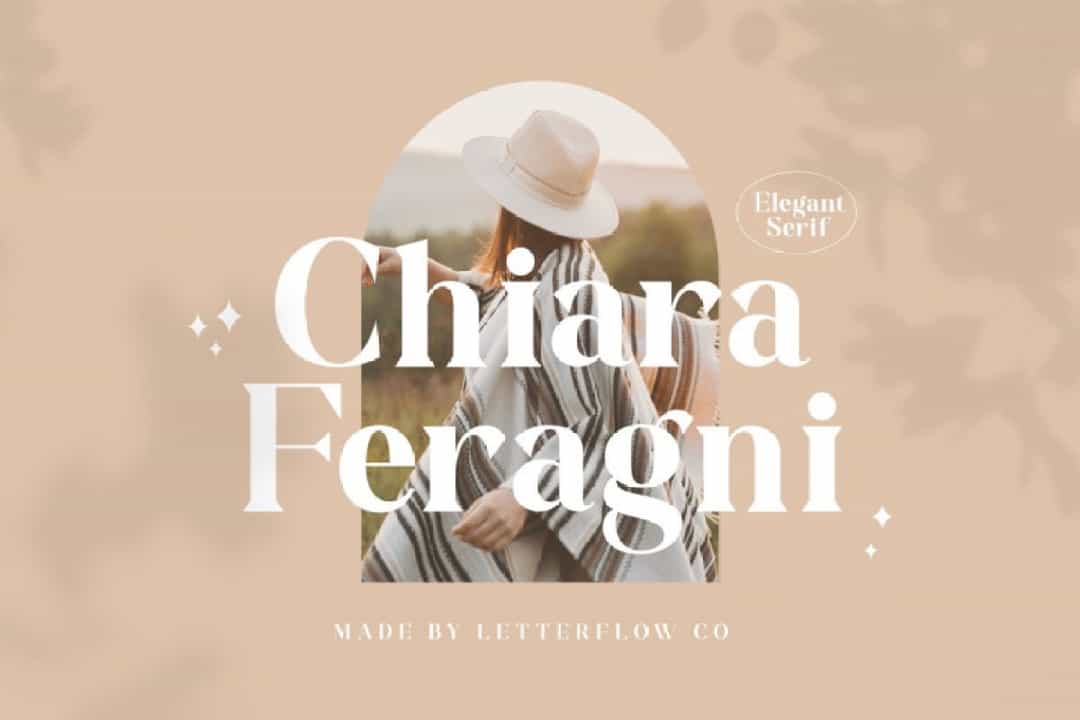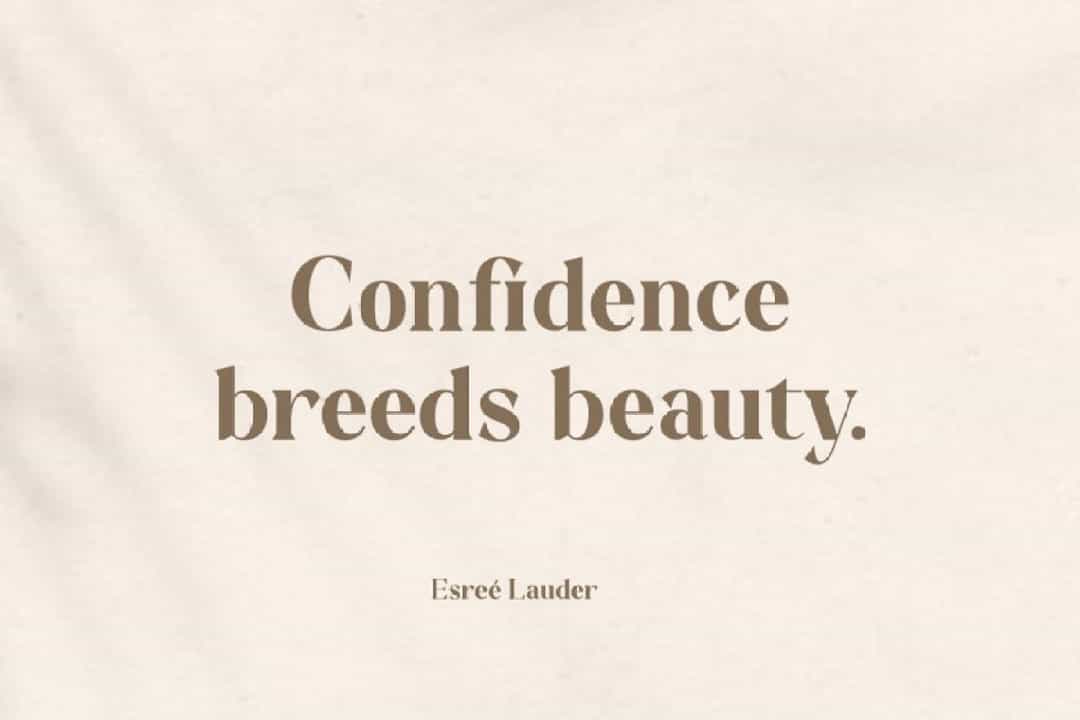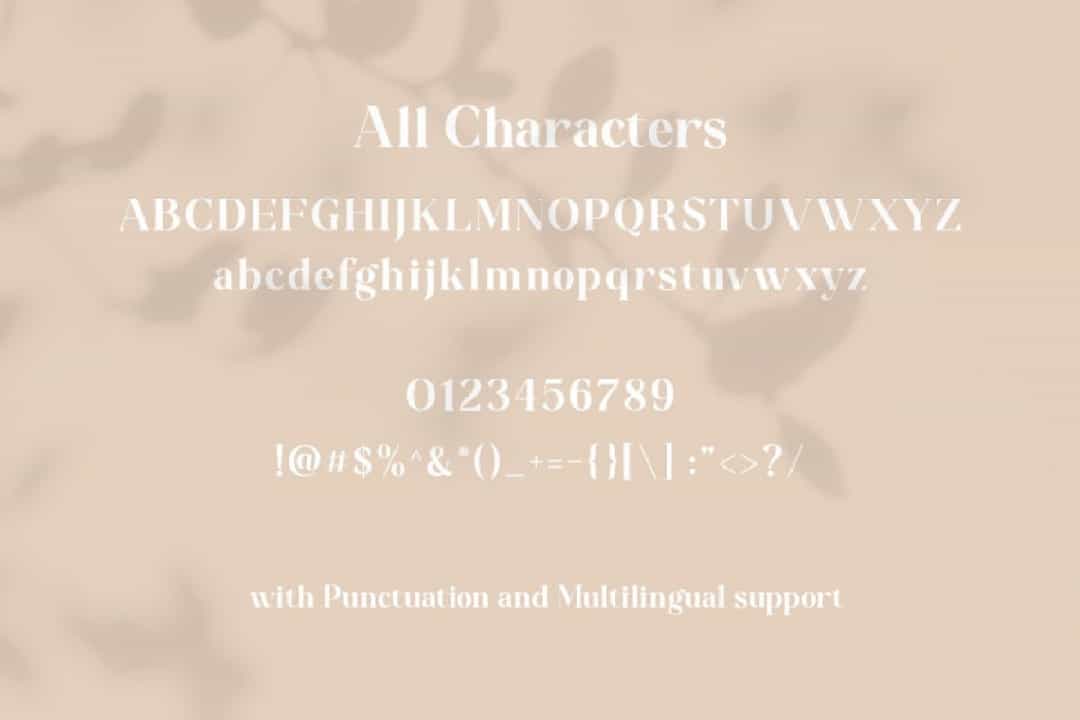
Chiara Feragni is an iconic serif typeface. No matter the topic or design project at hand, adding this font can only enhance any design further and make any project more visually appealing.